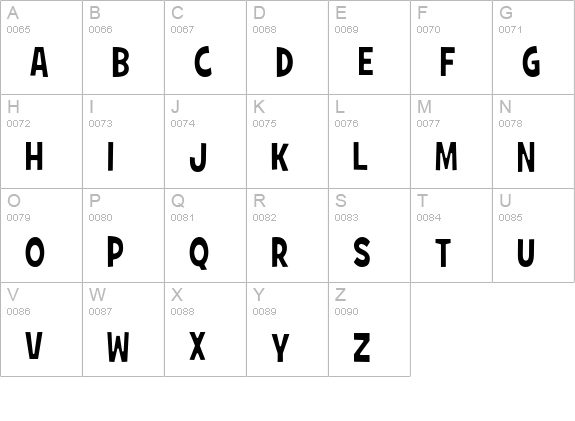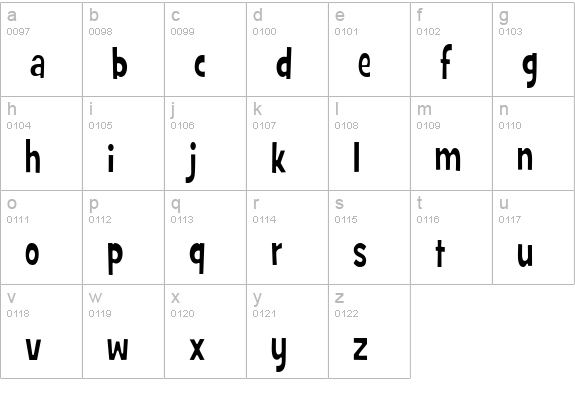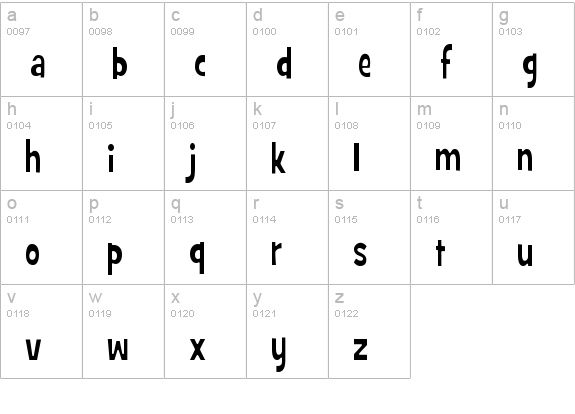
GrilledCheese BTN Cn Font Details
GrilledCheese BTN Cn font is a delightful and playful typeface that combines a modern aesthetic with a touch of whimsy. Its clean lines and rounded edges give it a friendly and approachable feel, making it perfect for a wide range of design projects. This versatile font is ideal for creating eye-catching headlines, branding materials, packaging designs, and more. Its condensed style allows for efficient use of space while still maintaining readability and impact. Best of all, GrilledCheese BTN Cn font is available for free download at FontsMarket.com. This means you can easily add this charming font to your collection without breaking the bank. Whether you're a seasoned designer or just starting out, this font is sure to become a go-to choice for adding a touch of fun to your projects.